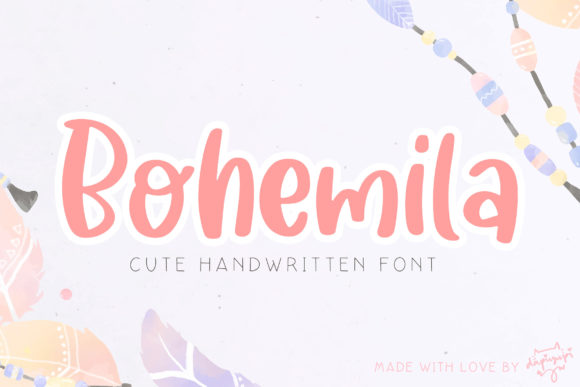
The Quest for the Perfect Font: How Bohemila Stole My Heart
I still remember the frustration of scrolling through font after font, searching for the perfect one to bring my design project to life. As a designer, I’ve had my fair share of late nights, sipping coffee and browsing through font libraries, trying to find that one special typeface that would make my client’s business cards stand out. And then, I stumbled upon Bohemila – a cute and quirky handwritten font that instantly caught my attention. In this article, I’ll share my love for Bohemila, its features, and how you can make the most of it in your designs.
An Honest Review of Bohemila
What I Love About Bohemila ✨
- ✅ Sweet and Playful: Bohemila’s handwritten charm makes it perfect for designs that require a personal touch.
- ✅ Versatile: This font can elevate the look of any creation, from product packaging to business cards, and more!
- ✅ Ease of Use: Bohemila is easy to read and works well in various design contexts.
- ⚠️ Limited Formality: Bohemila’s playful nature makes it less suitable for formal or corporate designs.
- ⚠️ Glyph Limitations: While Bohemila has a range of glyphs, it may not have every special character you need.
- Experiment with OpenType features like ligatures and stylistic alternates to add personality to your text.
Alternatives to Bohemila: Explore Similar Fonts
If you love Bohemila, you might also enjoy these similar fonts:
- Karla: A modern, elegant sans-serif font perfect for designs requiring sophistication.
- Great Vibes: A fun, handwritten script font ideal for creative projects and social media graphics.
- Lobster: A stylish, elegant script font suitable for formal and informal designs.
- Pacifico: A beautiful, modern script font great for designs that need a touch of elegance.
The Story Behind Bohemila: Designer Inspiration
Bohemila’s creator drew inspiration from traditional handwriting and the bohemian lifestyle. The goal was to craft a font that exudes a carefree, artistic vibe while remaining legible and versatile. The result is a font that adds a personal touch to any design.
Q: What makes Bohemila unique?
A: Bohemila’s uniqueness lies in its perfect blend of playfulness and elegance, making it suitable for a wide range of design projects.
Q: Is Bohemila suitable for body text?
A: While Bohemila is primarily designed for display purposes, it can be used for short paragraphs of body text. However, for longer texts, a more traditional font might be more readable.